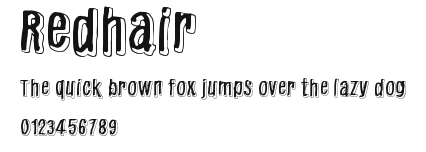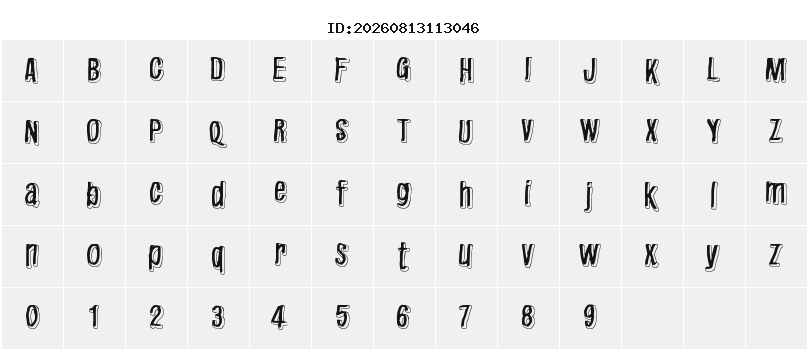
Redhair Preview
• Font Name: Redhair
• Font ID: Redhair:Version 1.00
• Full Font Name: Redhair
• Version: Version 1.00 September 14, 2015, initial release
• PostScript Name: Redhair
• Character Count: 652
• Description: This font was created using Font Creator 5.0 from High-Logic.com
About Redhair.ttf
Redhair.ttf is a modern, elegant sans-serif font designed for ultimate readability and visual harmony. Perfect for branding, headlines, web design, and print materials.